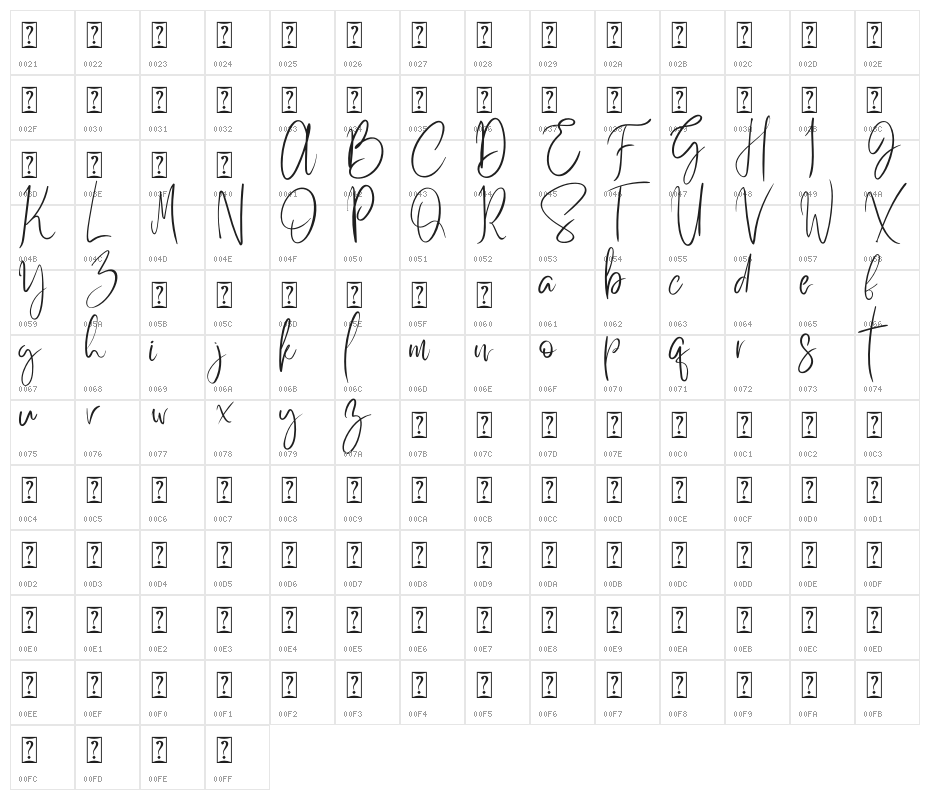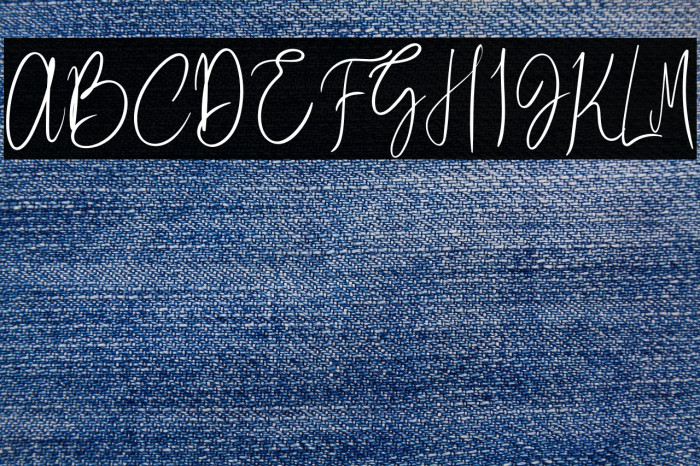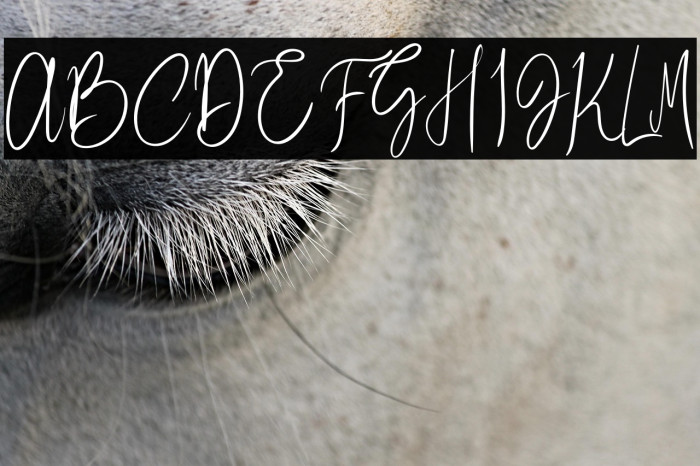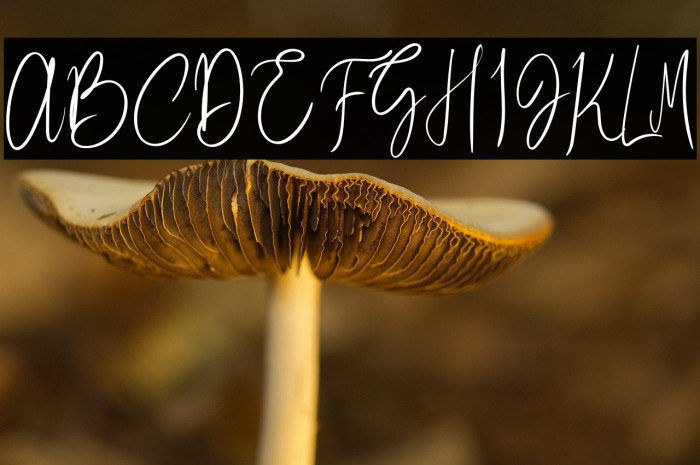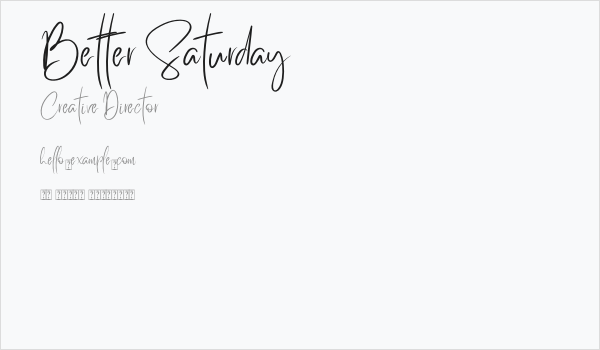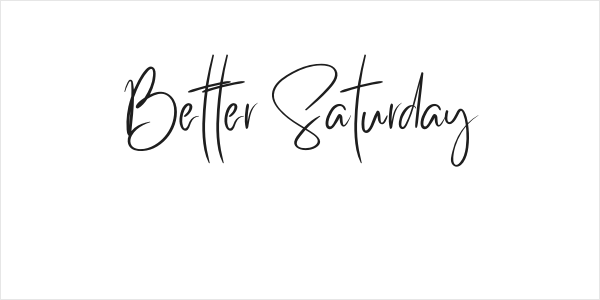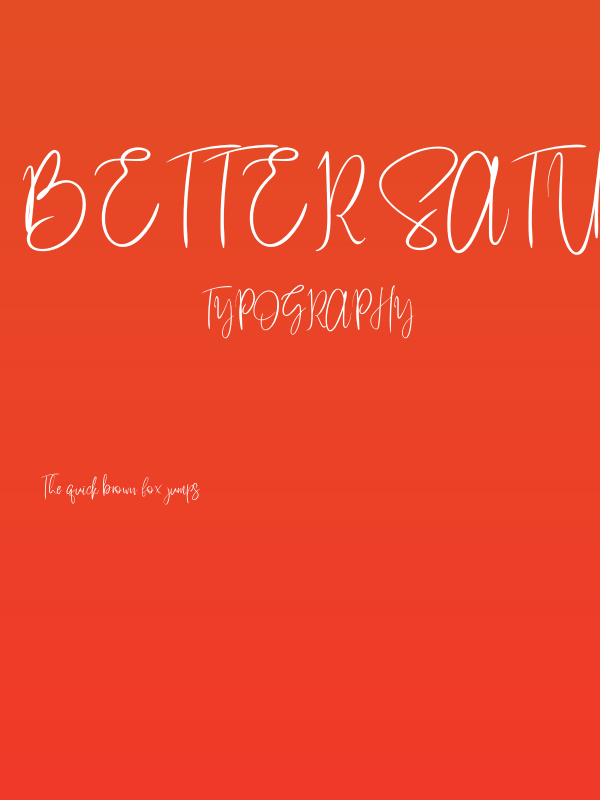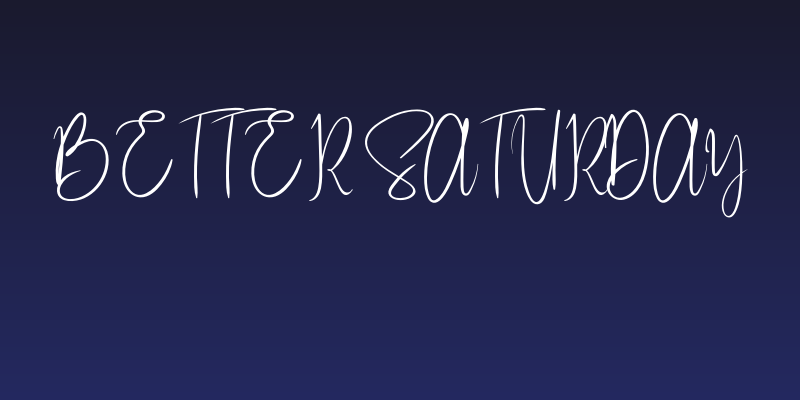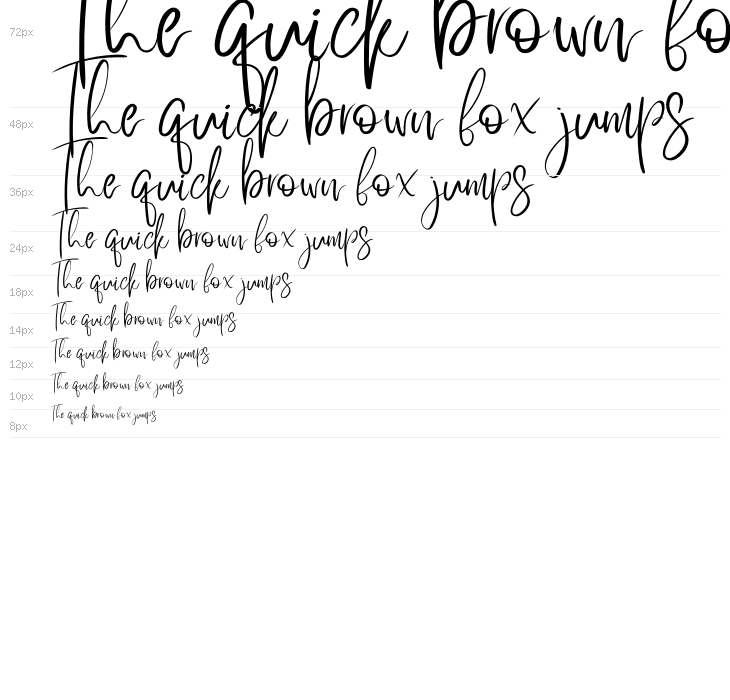
Better Saturday Font
Better Saturday Description
A flowing, handwritten script font with a casual and artistic style, featuring smooth curves and varying stroke widths.
| Overall Style | Casual, Artistic |
| Use Case | Logos, Headlines |
| Proposed Projects | Greeting cards, invitations, personal branding. |